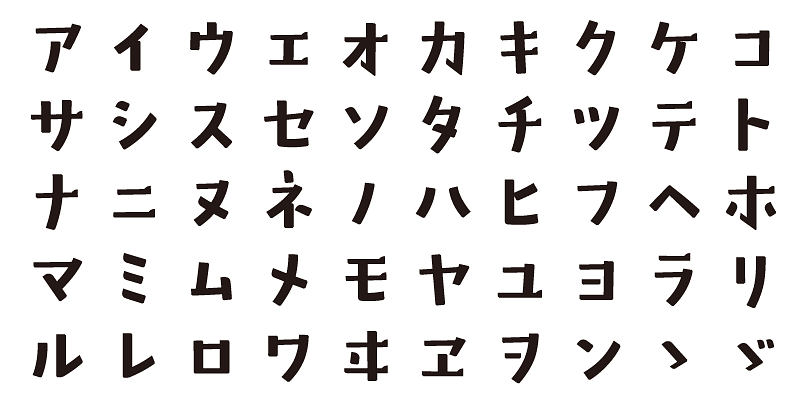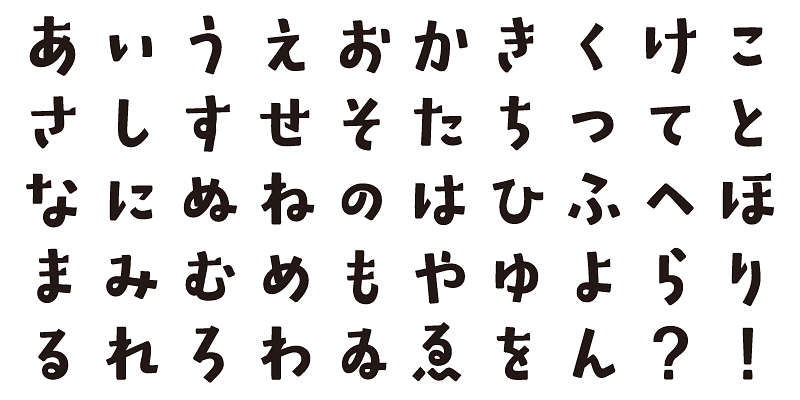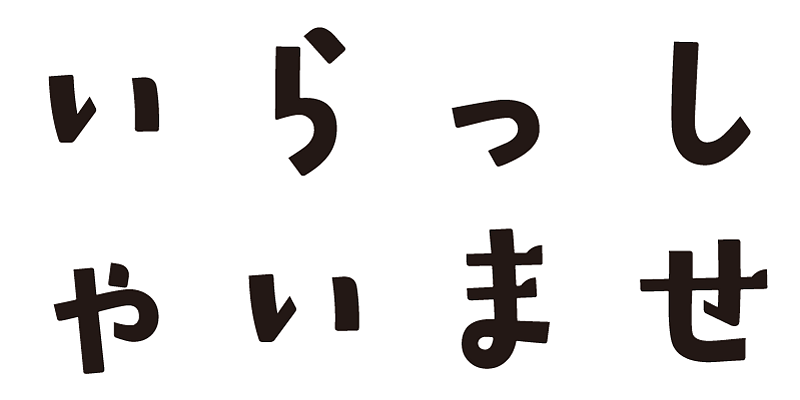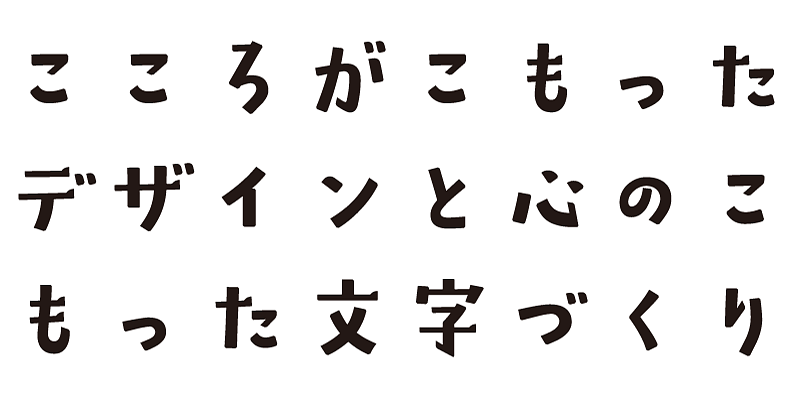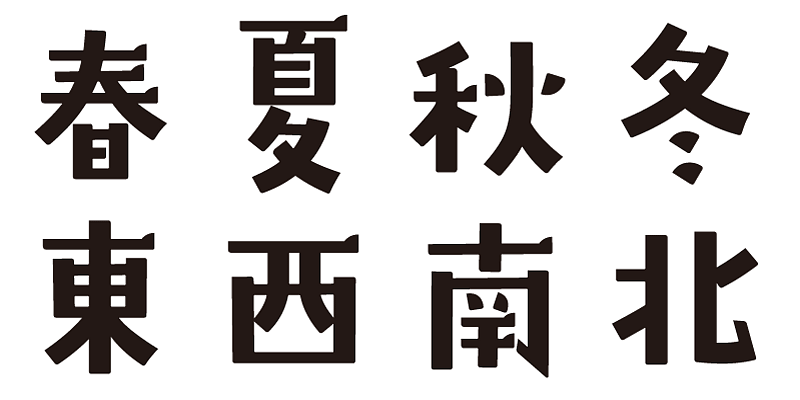
This typeface evokes the image of a pleasant sky, air, scenery, and greenery, reminiscent of a leisurely holiday.
This font includes 1,000 kanji characters, as well as hiragana, katakana, alphanumeric characters, and punctuation marks.
We design typefaces with the hope that they will add underlying meaning to words expressed. We wish the user to feel good and experience comfort and joy when using these typefaces.